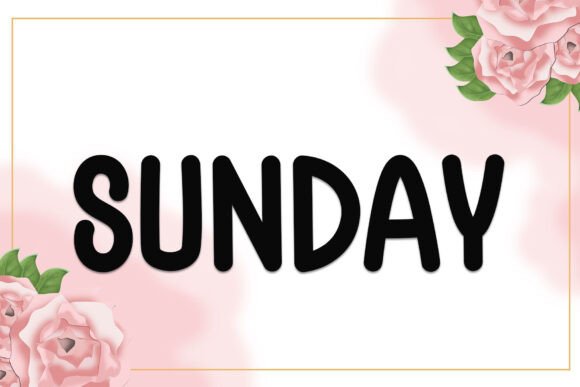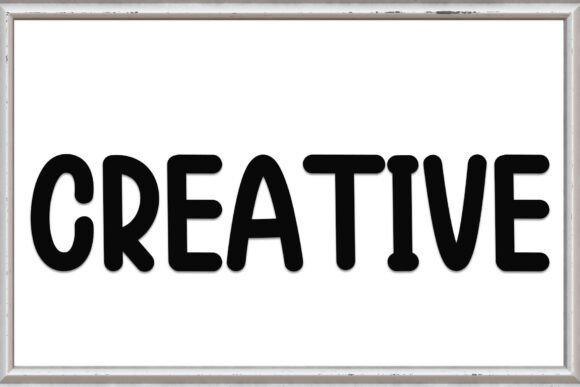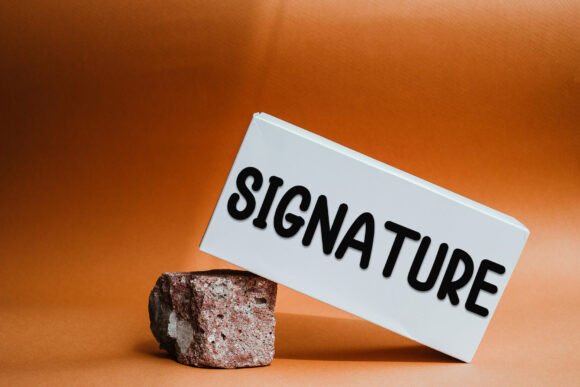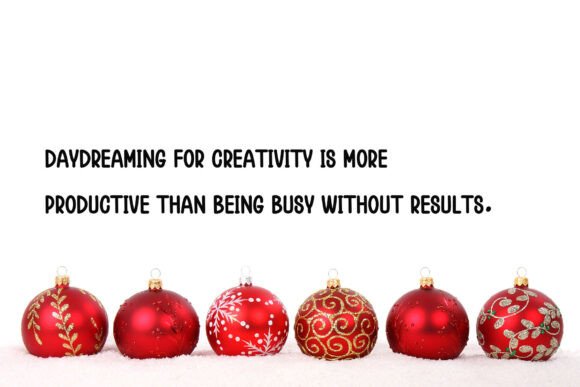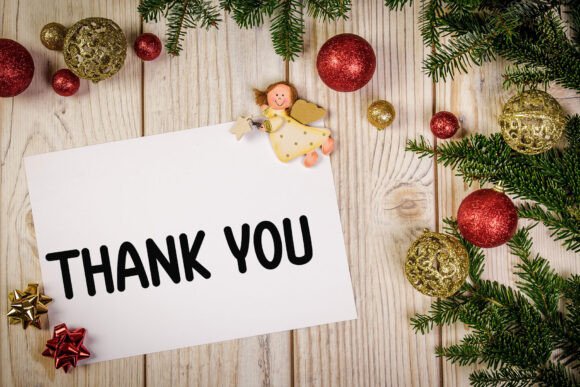
Introducing Football Font: The Ultimate Choice for Sports-Related Designs
Are you a designer or crafter looking for a font that captures the energy and excitement of the game? Look no further than Football Font, a bold display font inspired by the thrill of football. With its strong, thick letters, this font is perfect for creating eye-catching headlines and team logos that will make your designs stand out.
The Inspiration Behind Football Font
Football Font is more than just a font – it’s an expression of the passion and competition that comes with the game. The font’s design is inspired by the bold, dynamic lines of football equipment, stadiums, and team logos. Each letter is carefully crafted to evoke the sense of strength, speed, and agility that defines the sport.
Key Features of Football Font
- Bold and Thick Letters: Football Font features strong, thick letters that are perfect for headlines and titles. The font’s bold design ensures that your text will be visible from a distance, making it ideal for posters, billboards, and digital displays.
- Perfect for Team Logos: The font’s sporty design makes it an excellent choice for team logos, jerseys, and other sports-related branding materials. Whether you’re designing for a professional team or a local league, Football Font is sure to make a statement.
- Captures the Spirit of Competition: Football Font embodies the competitive spirit of the game, making it perfect for designs that require a bold and dynamic look. From championship titles to sports equipment branding, this font has got you covered.
- Versatile and Easy to Use: Football Font is a versatile font that can be used for a wide range of design projects, from digital graphics to print materials. The font is easy to install and use, making it accessible to designers of all skill levels.
How to Use Football Font in Your Designs
Football Font is a versatile font that can be used in a variety of design projects. Here are some ideas to get you started:
- Team Logos and Branding: Use Football Font to create bold and dynamic team logos that will make your team stand out.
- Posters and Flyers: Create eye-catching posters and flyers for sports events, tournaments, and championships.
- Social Media Graphics: Use Football Font to create engaging social media graphics, such as Facebook posts, Twitter headers, and Instagram stories.
- Merchandise and Apparel: Design sports merchandise and apparel, such as t-shirts, hats, and water bottles, with Football Font.
Tips and Tricks for Getting the Most Out of Football Font
Here are some tips and tricks to help you get the most out of Football Font:
- Experiment with Colors: Try pairing Football Font with bold and bright colors to create eye-catching designs.
- Play with Texture and Patterns: Add texture and patterns to your designs to give them a more dynamic look.
- Mix and Match Fonts: Combine Football Font with other fonts to create unique and interesting typography.
Football Font is a bold and dynamic font that’s perfect for designers and crafters looking to create sports-related designs. With its strong, thick letters and sporty design, this font is sure to make a statement in any design project. Whether you’re designing for a professional team or a local league, Football Font is the ultimate choice for creating eye-catching headlines, team logos, and more.